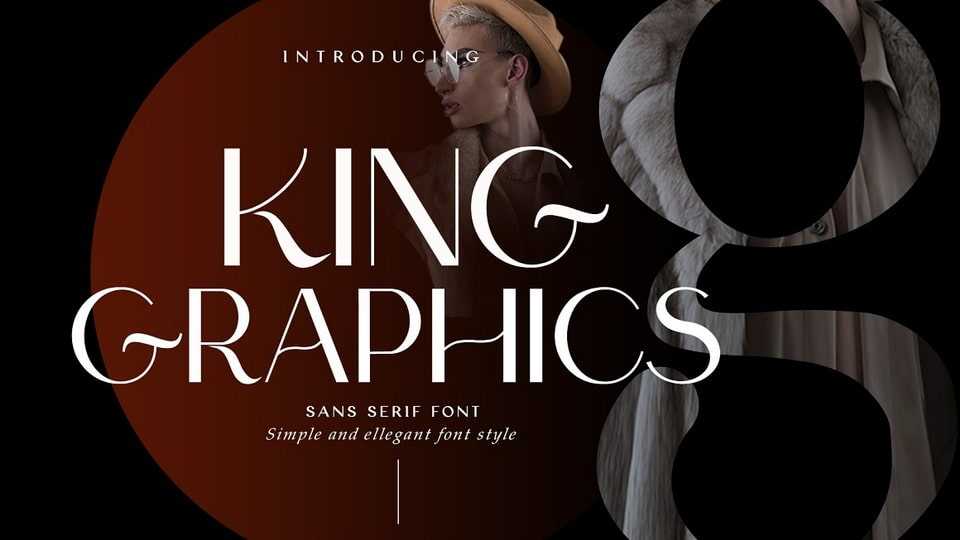
Download King Graphics font, an elegant sans serif typeface. King Graphics is perfectly used for product presentation, elegant logo design, packaging or invitation cards.